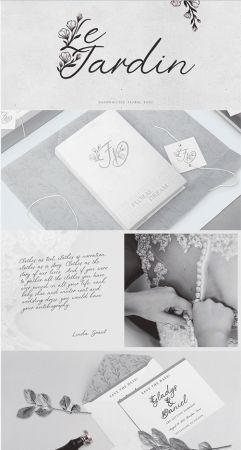
Le Jardin comes in two styles: Floral and Regular. This font includes ligatures and a full set of lowercase alternates to make your text as close to a natural handwritten script as possible.
The font has extensive language support, it includes English and European latin-based languages: French, Italian, Spanish, Portuguese, German, Swedish, Norweigen, Danish,
Finnish and other. Le Jardin support Cyrillic with ligatures and alternates.